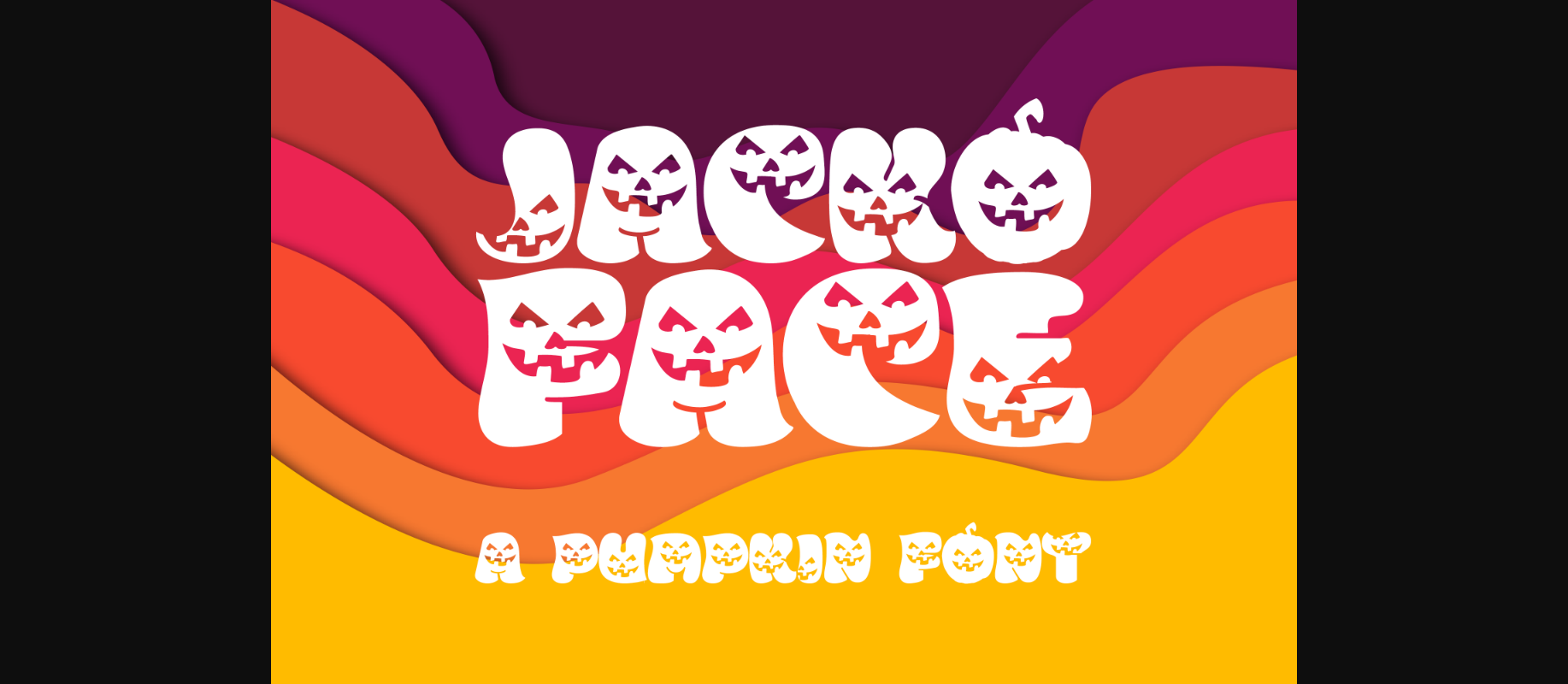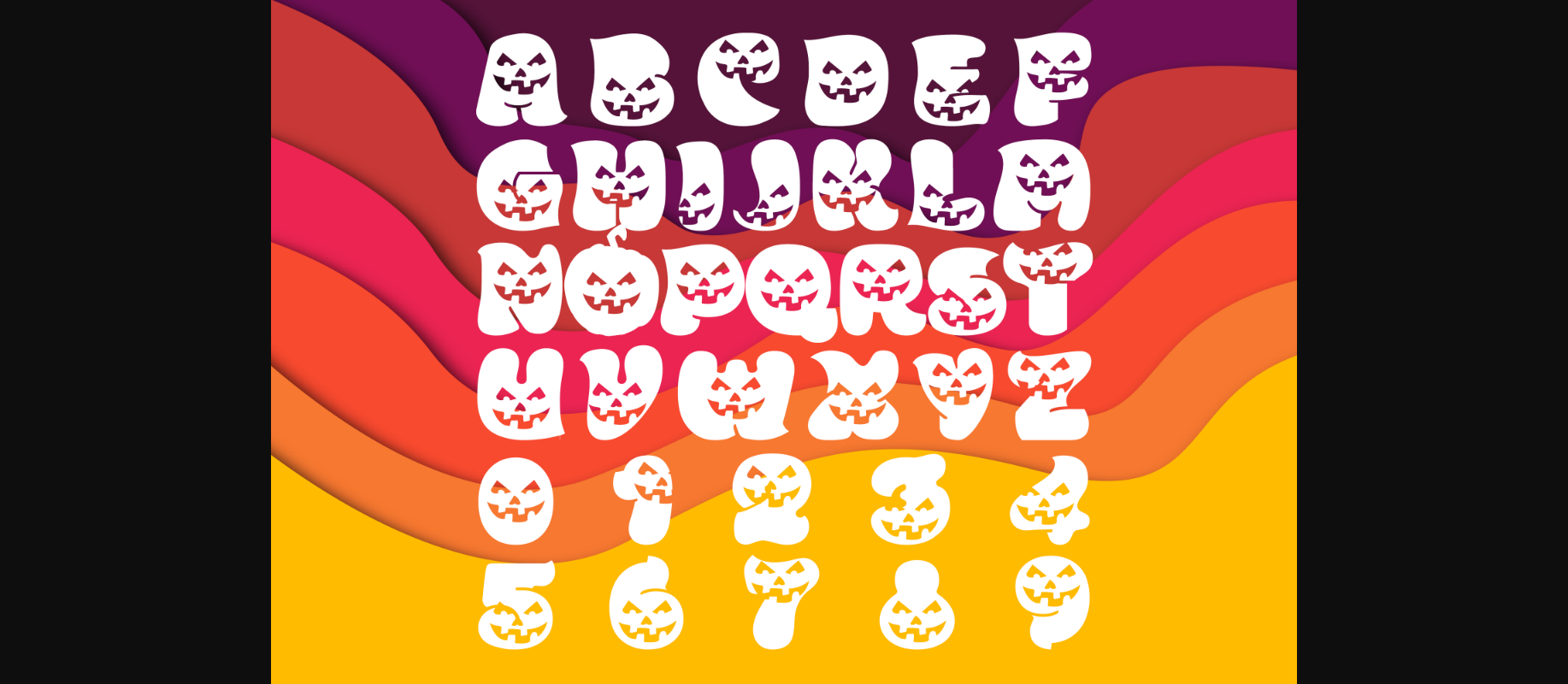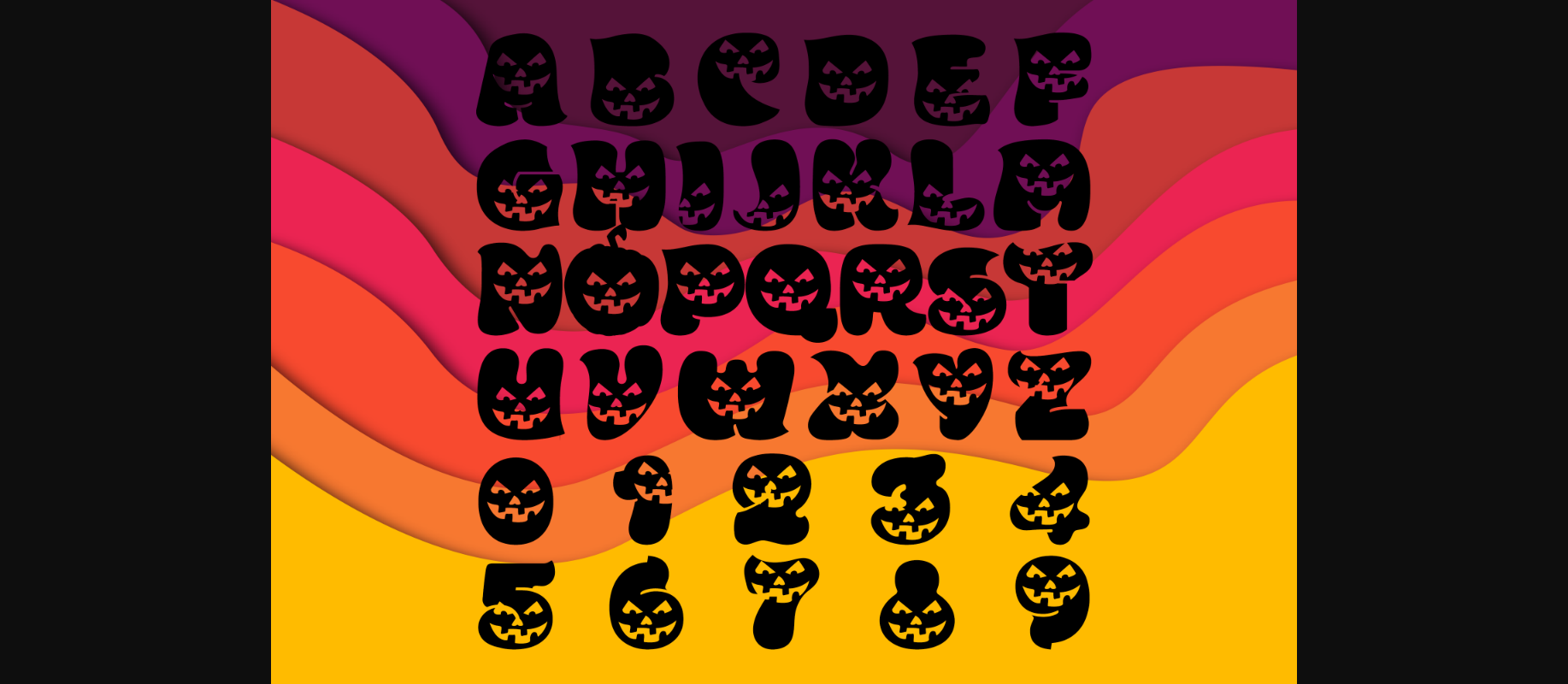
About Jacko Face Font
Jacko Face is an incredibly cool and spooky decorative font. Add it to each of your Halloween designs, and they will instantly stand out.